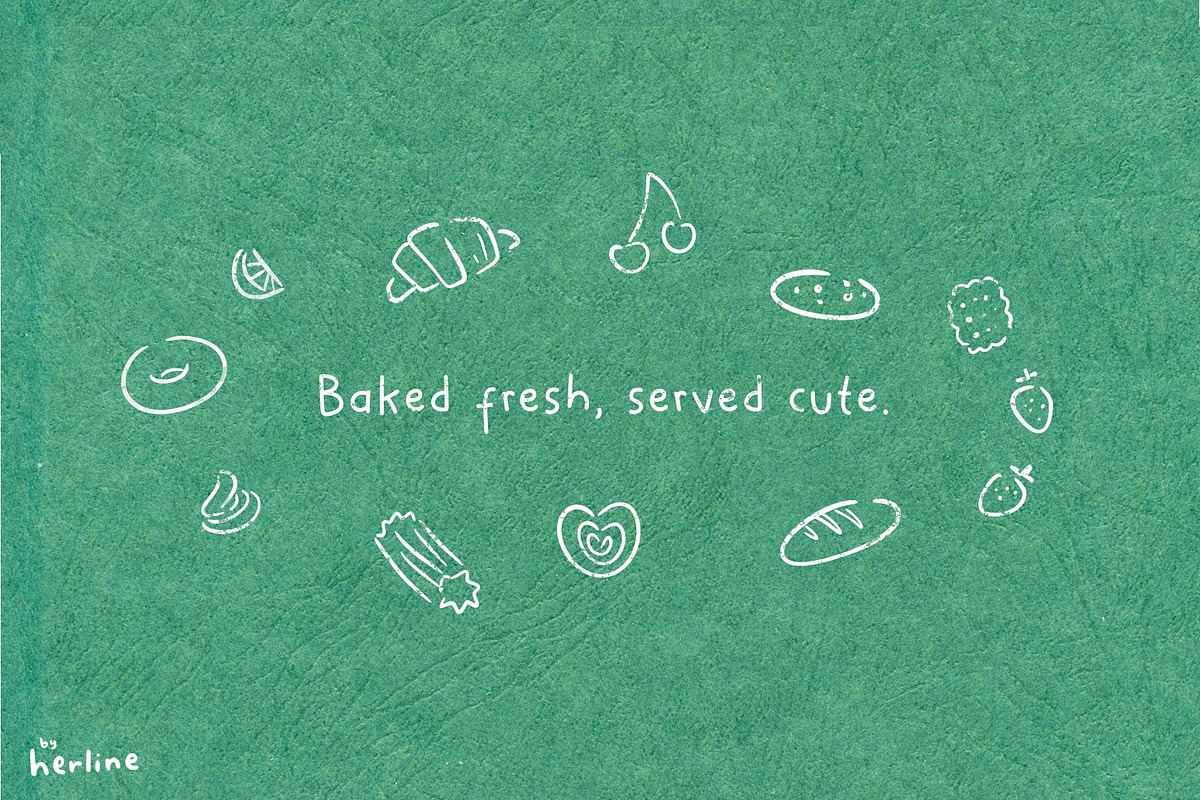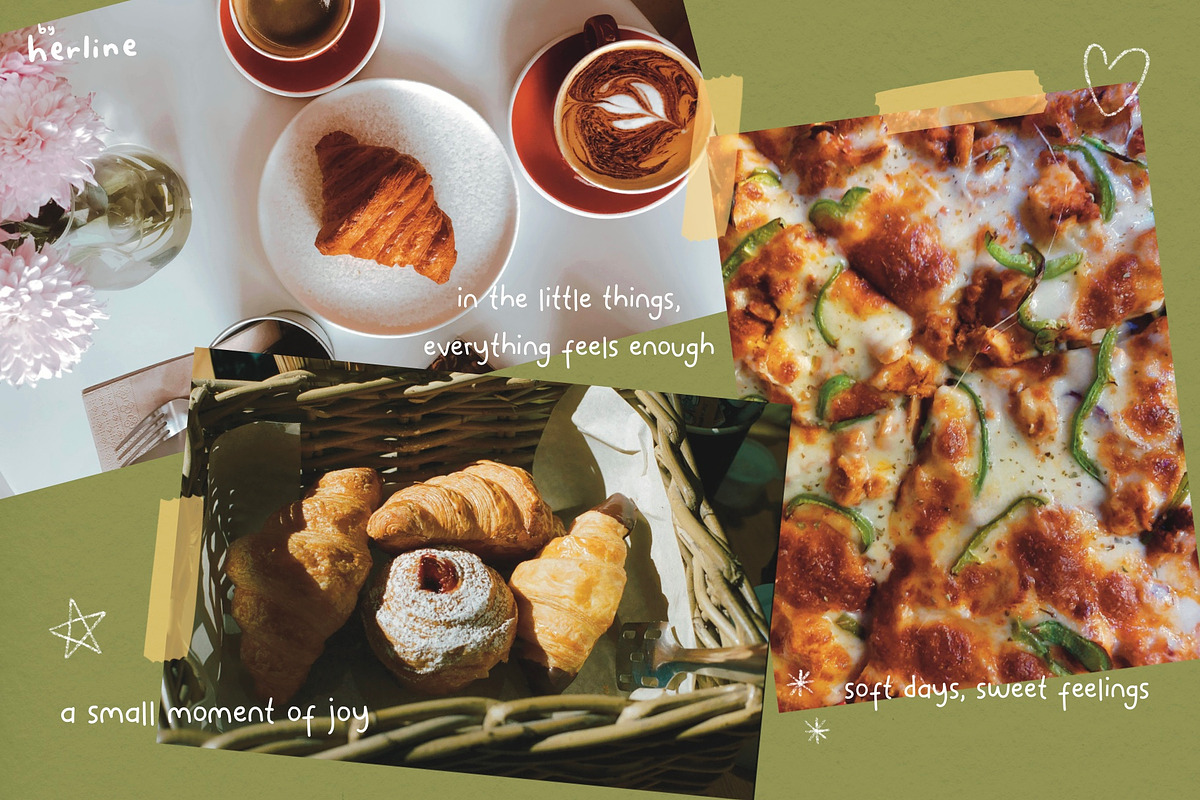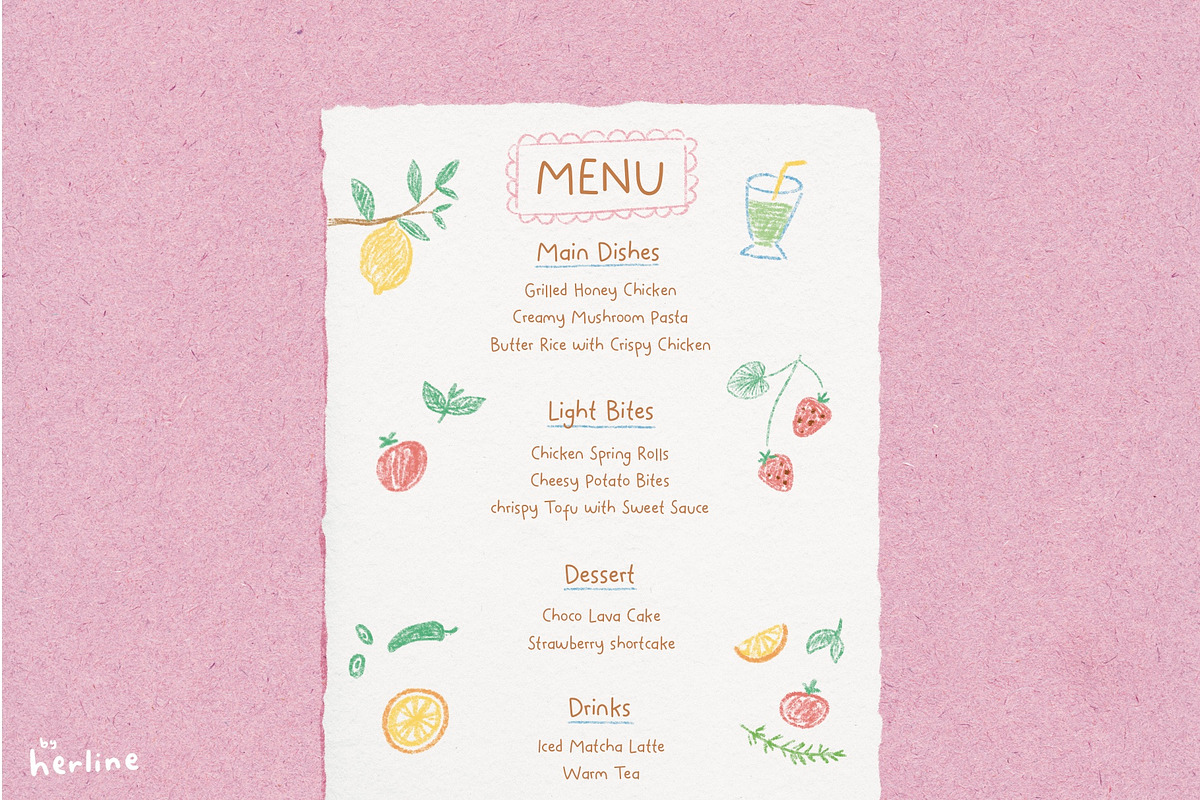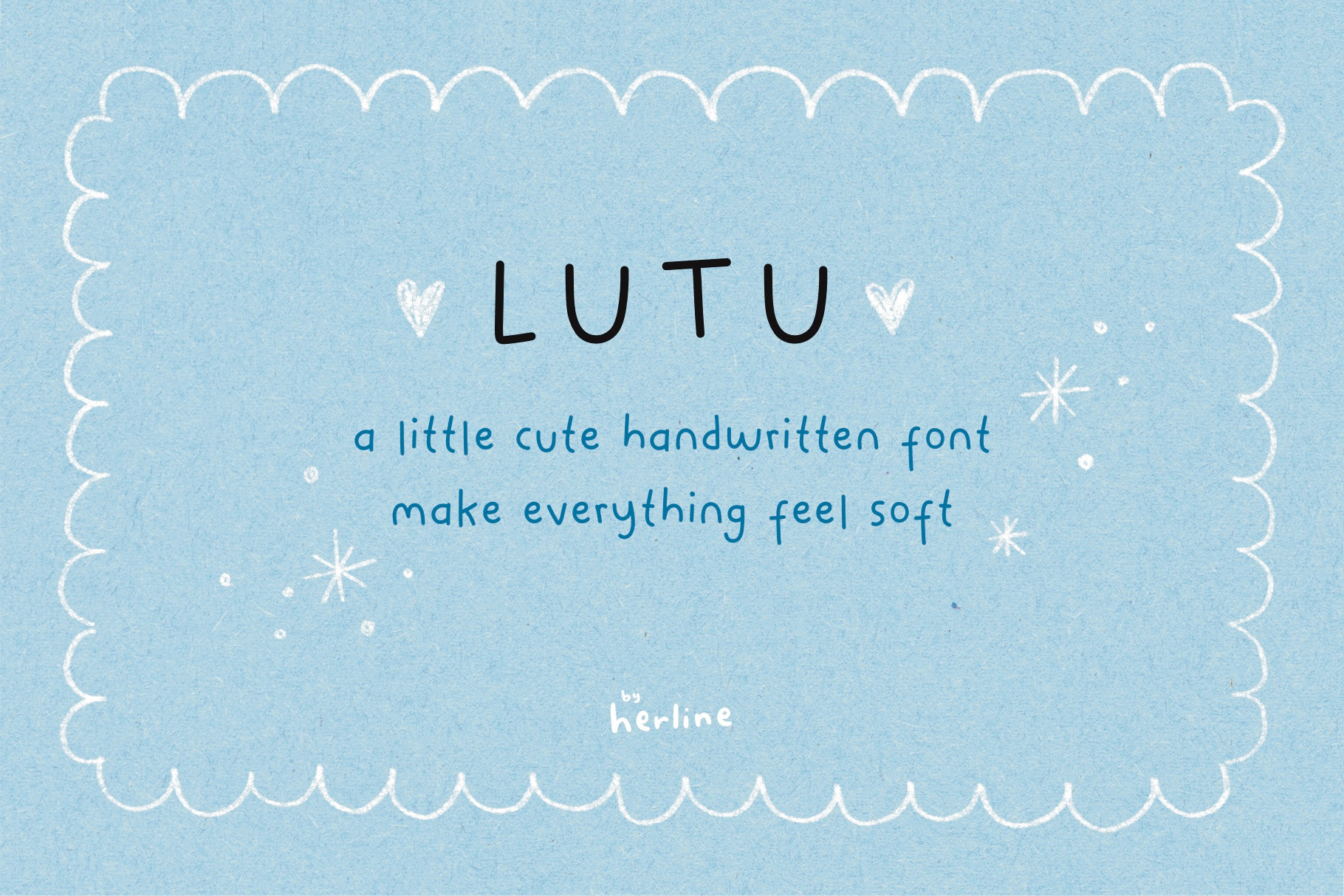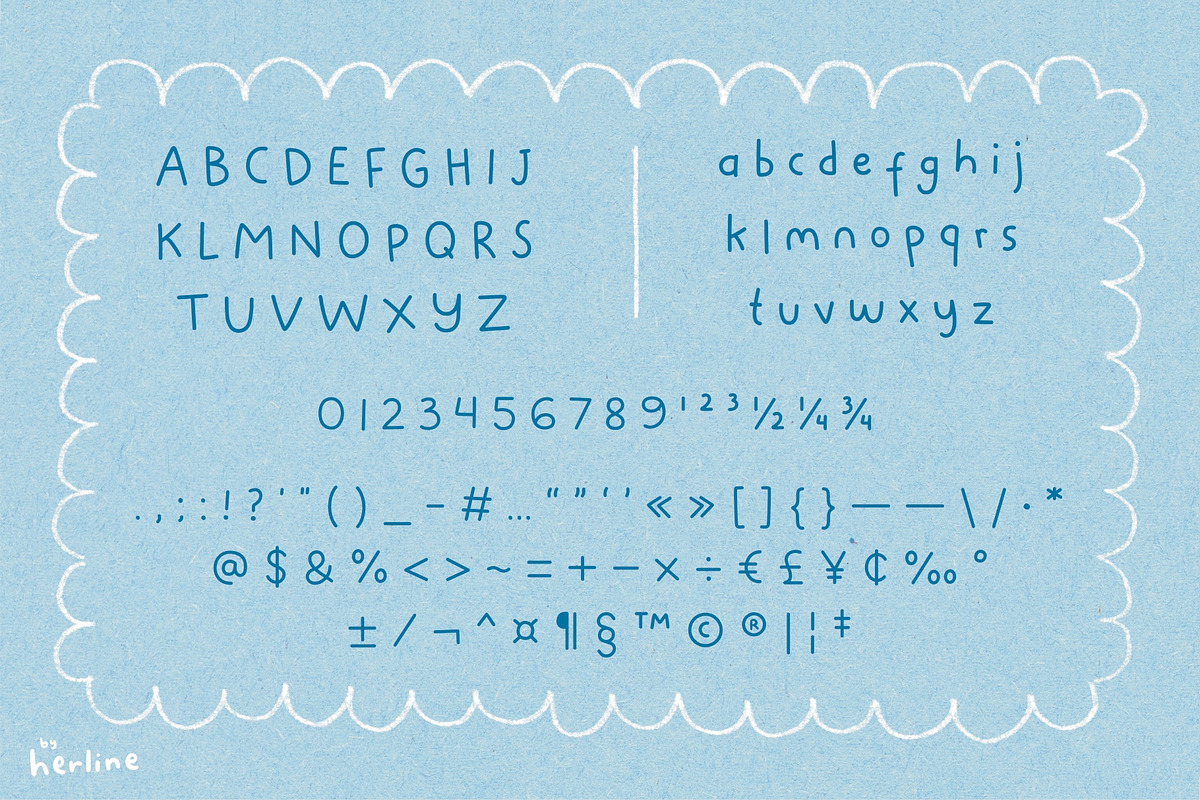
LUTU - Handwritten Font
Cute handwritten font with a soft, playful, and natural feel. Perfect for branding, packaging, social media, quotes, kids projects, and cute creative designs.